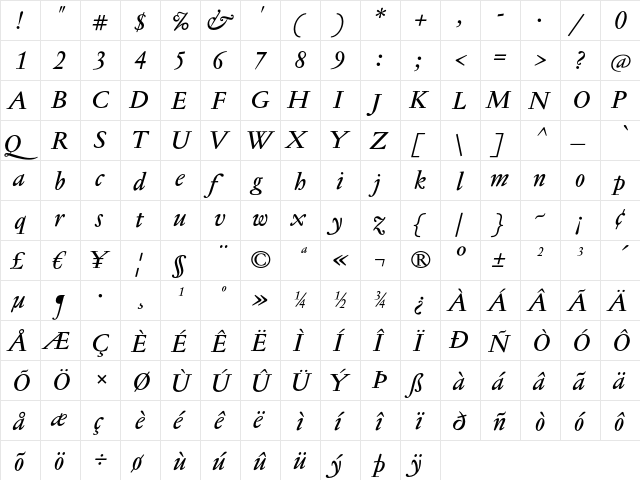
Jannon Text Med Italic
| Foundry | Frantisek Storm, stormtype.com |
Design Context for Jannon Text Med Typeface
Jannon Text Med is a composed and adaptable typeface that performs quietly and consistently across a wide range of design contexts. The dynamic lean of this cut emphasises speed and emphasis in any layout.
Pro Tip: Use Jannon Text Med for emphasis, pull quotes, and subheadings where its slanted energy can add rhythm to the layout.